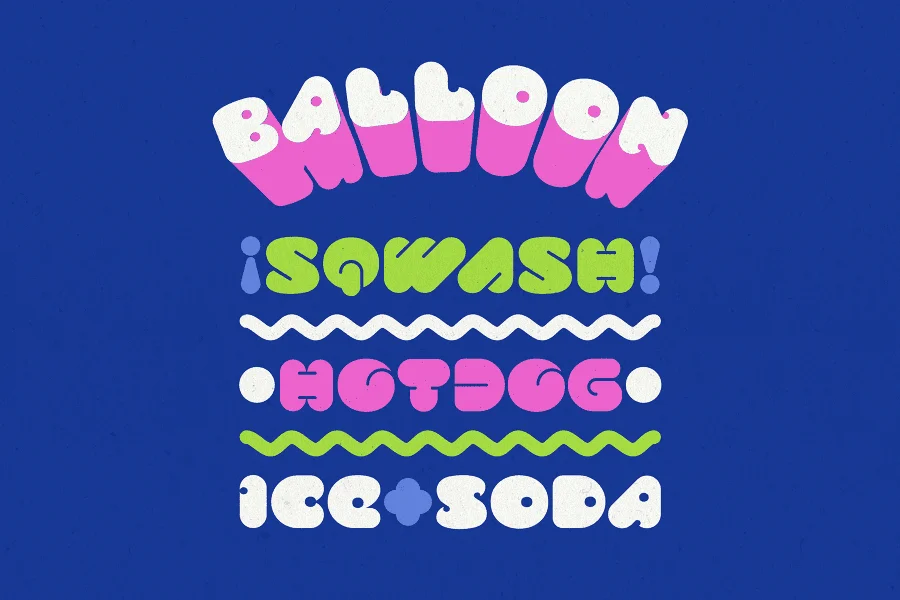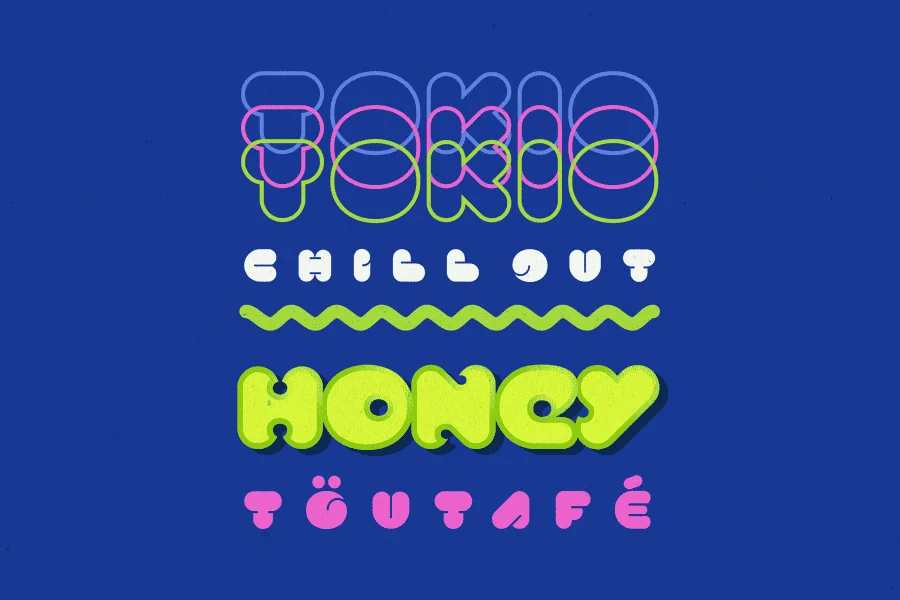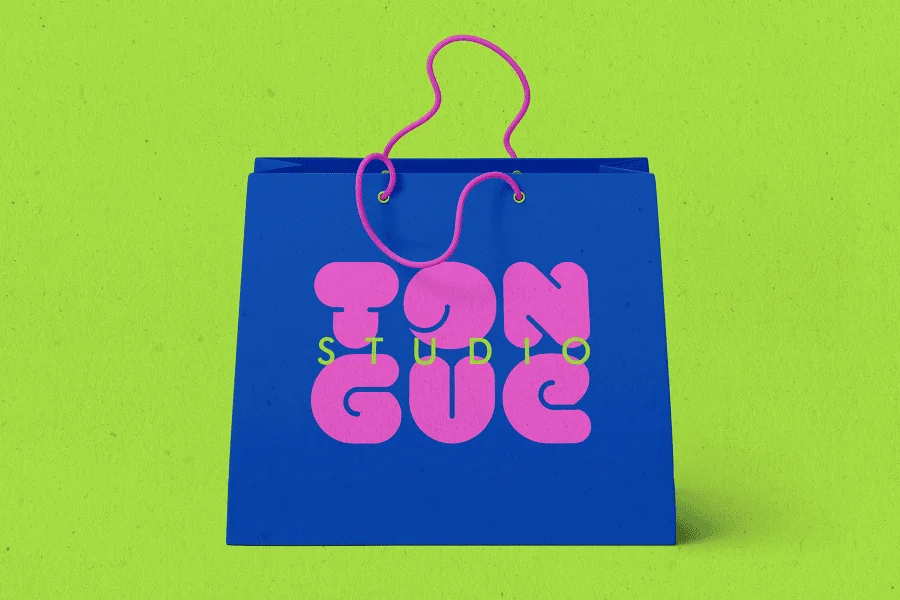
Diskopia - Typeface for logos and branding includes 3 styles (flat, dots, lines) and basic latin languages support. Use uppercase/lowercase to change direction of slanted letters and access some alternates.